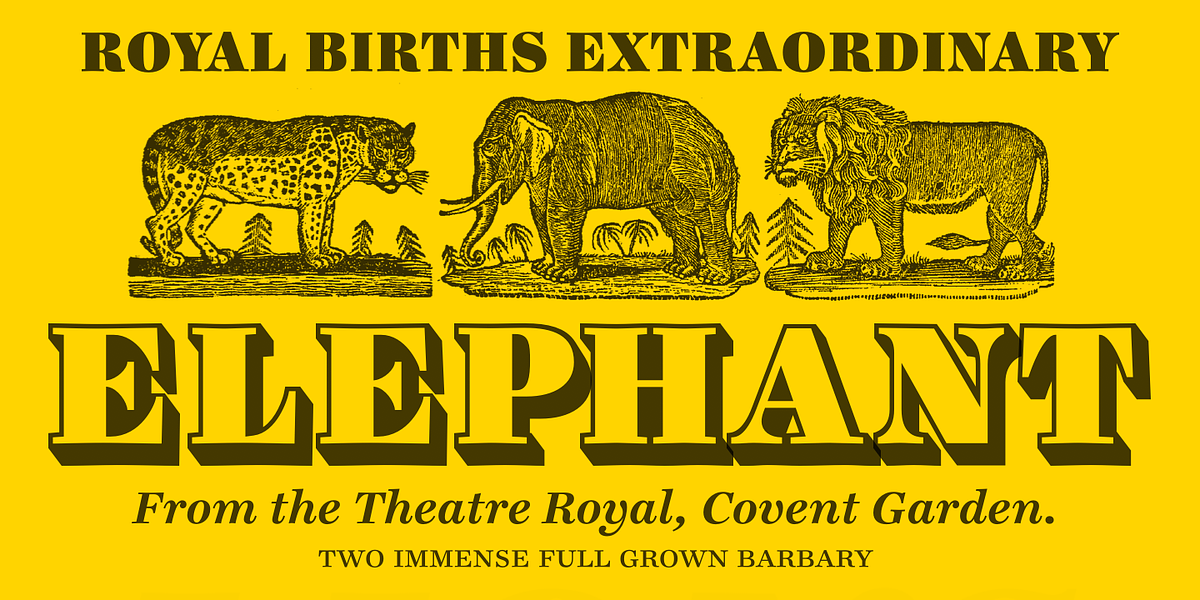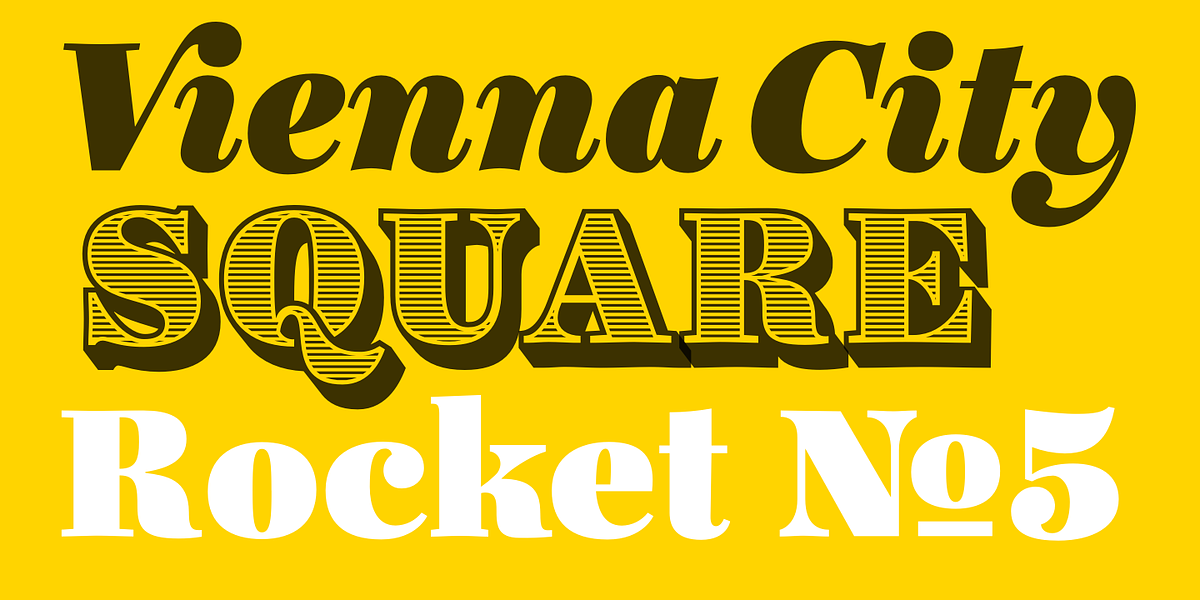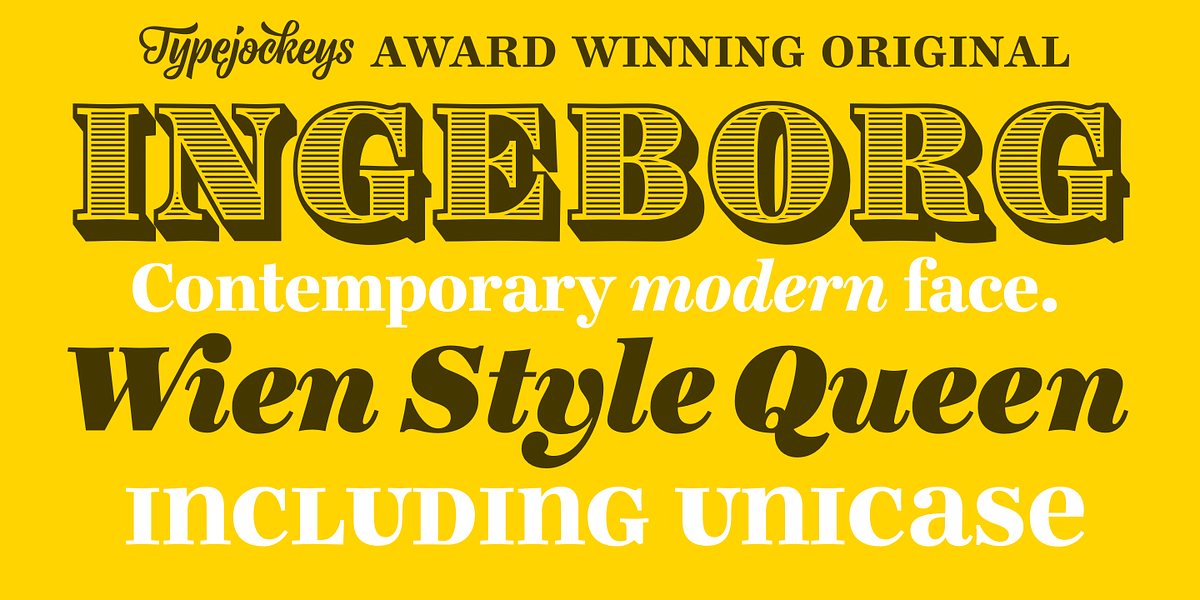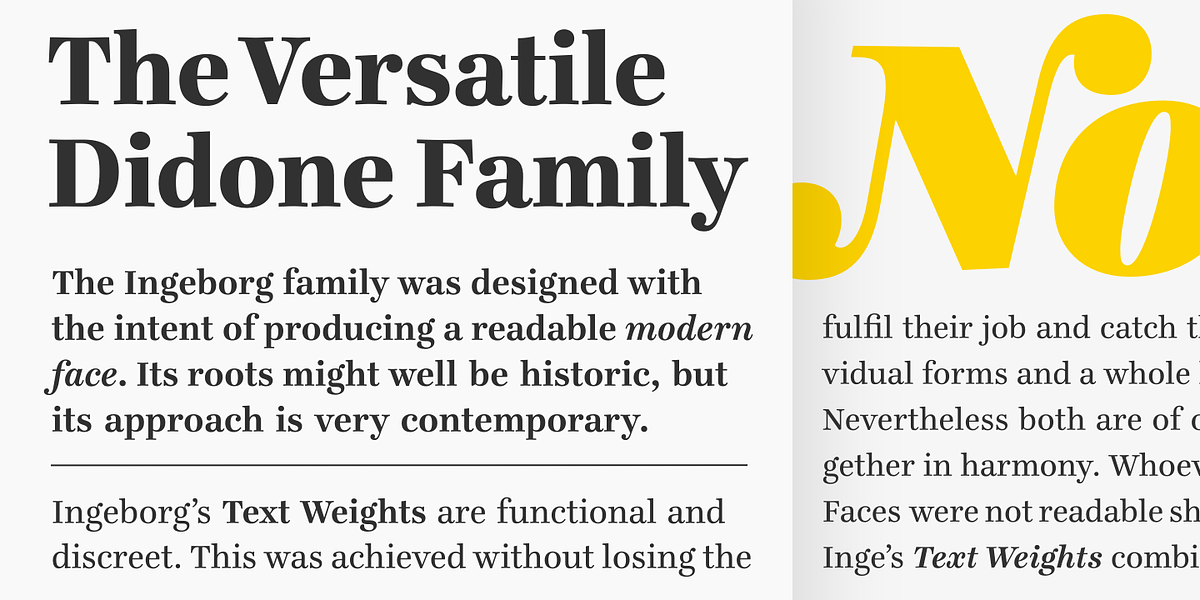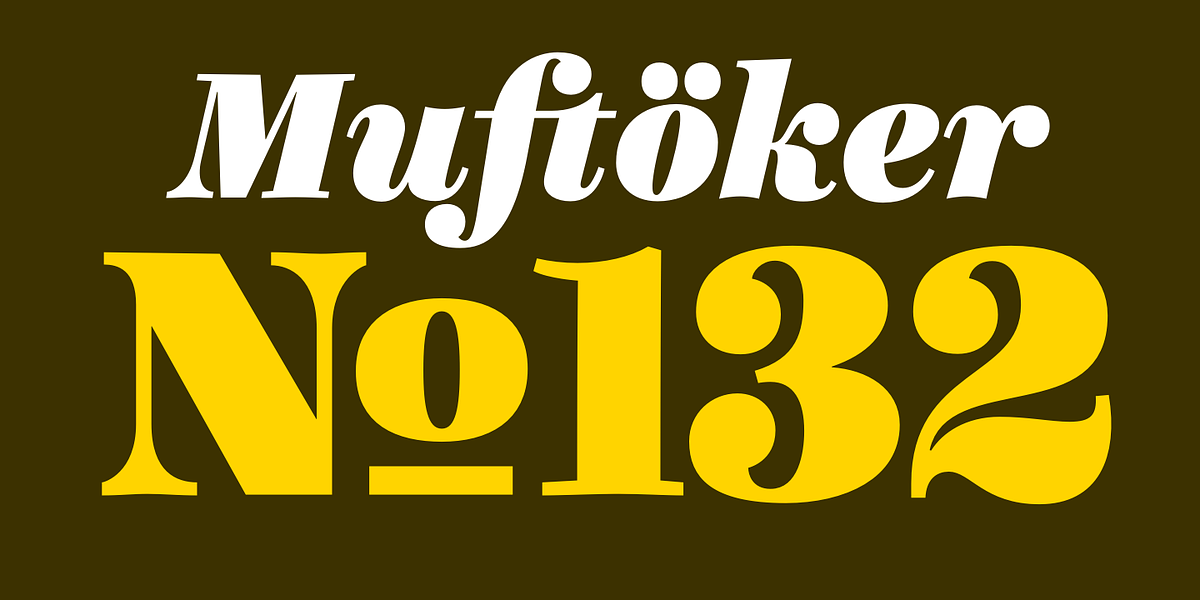
Ingeborg
The Ingeborg typeface is a modern interpretation of the classic Didone style. It balances readability for body text with eye-catching display weights designed for headlines. Key features include high contrast between thick and thin strokes, vertical stress, ball terminals, and a subtle shadowed effect.